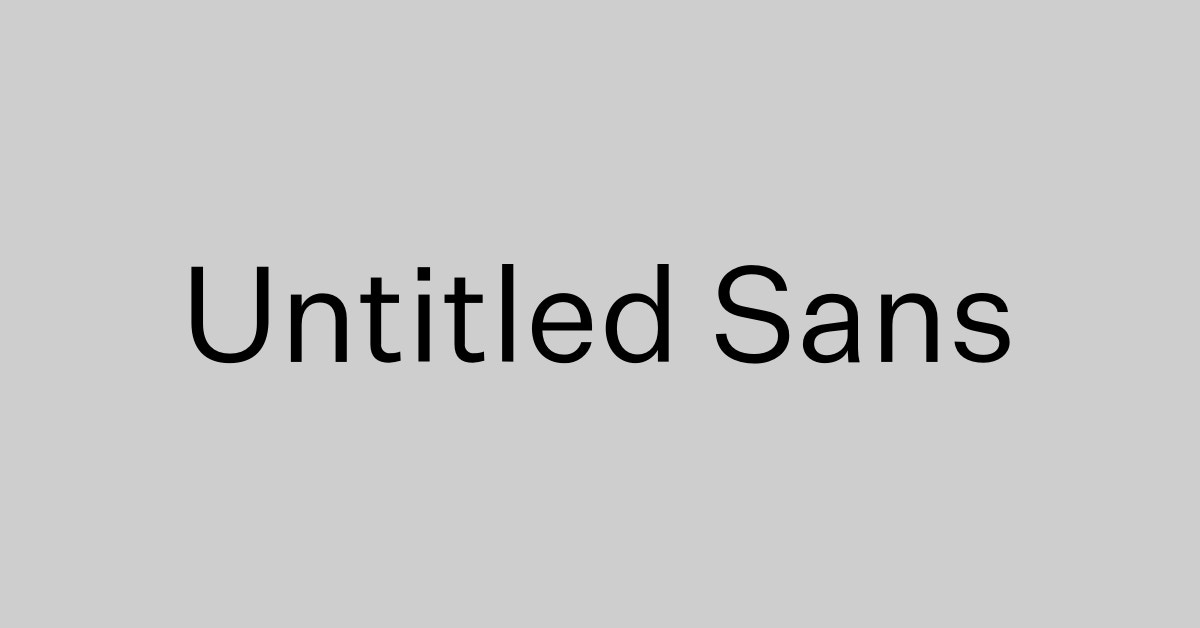
Untitled Sans Font
Untitled Sans Font is perfect for minimalist branding, modern web design, clean user interfaces, contemporary art galleries, architectural presentations, tech startup logos, editorial layouts, corporate communications, digital applications, and sophisticated visual identity systems.
What makes Untitled Sans Font so exciting is its masterful embodiment of pure typographic essence and uncompromising design clarity that transcends traditional categorization. This revolutionary typeface features meticulously refined letterforms with precise geometric proportions and subtle humanist influences that immediately convey intelligence and contemporary sophistication. The font's deliberate simplicity and confident restraint create an instant sense of purposeful design and thoughtful communication, making it ideal for projects that need to communicate complex ideas with crystal-clear precision and understated elegance.
The Untitled Sans Font family typically includes comprehensive weight variations from ultra-light to black, along with corresponding italic styles and condensed versions. Contemporary sans-serif families frequently offer extensive character sets including multiple numeral styles, currency symbols, and international language support that ensure optimal performance across diverse global communication requirements and digital platforms.
The adaptability of Untitled Sans Font makes it particularly valuable for digital environments where legibility and scalability are crucial for user experience success. UX designers and digital product teams will find this font especially effective for creating interfaces that support complex information hierarchies while maintaining visual coherence across multiple platforms and devices.
What distinguishes Untitled Sans Font is its remarkable ability to enhance content without competing for attention. This sophisticated characteristic makes it suitable for both bold statements and subtle communications where letting the message speak for itself is paramount.
Professional typographers appreciate that Untitled Sans Font brings invaluable versatility to projects across industries including technology, finance, healthcare, and creative services. Its neutral character and contemporary refinement make it indispensable for organizations seeking typographic solutions that will remain relevant and effective across changing design trends.
The systematic design approach of Untitled Sans Font ensures optimal performance across all contemporary communication challenges.